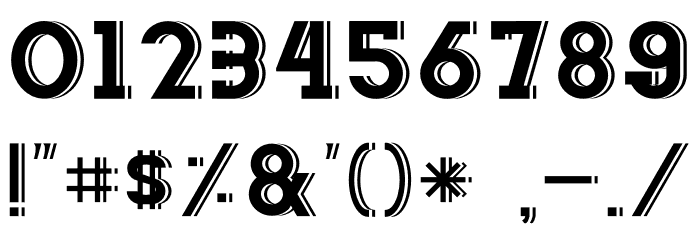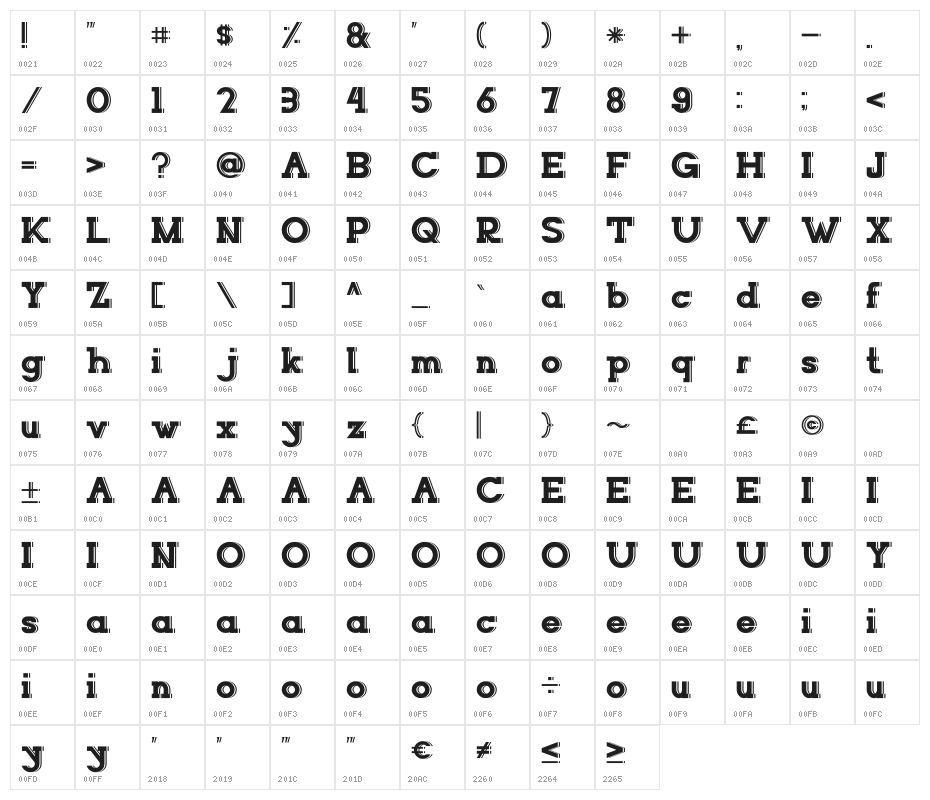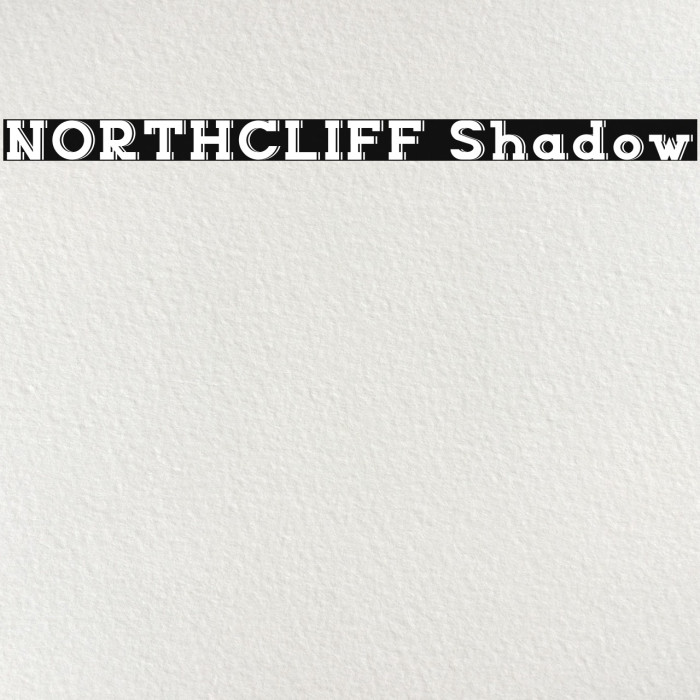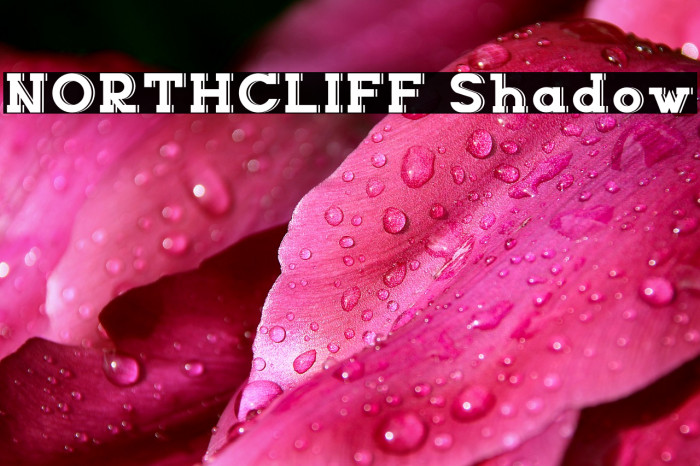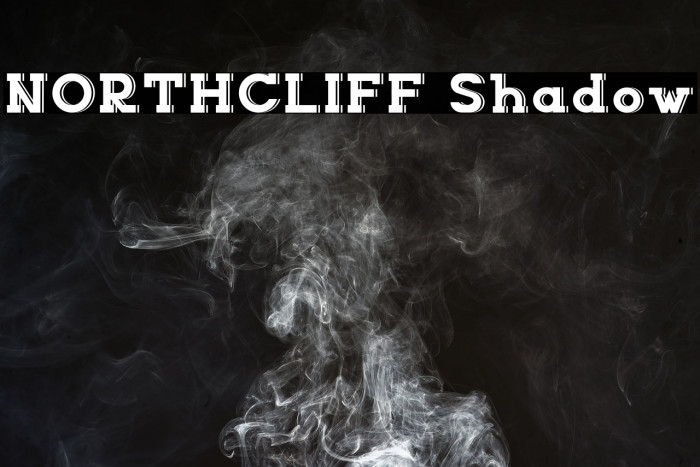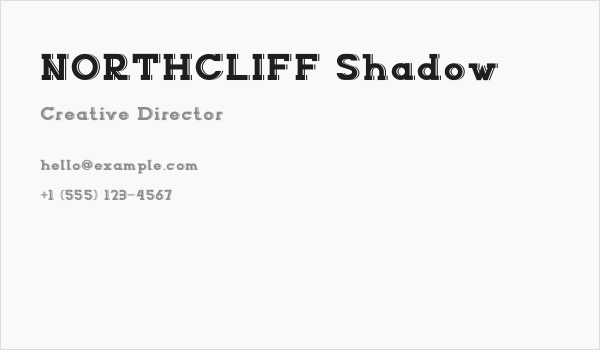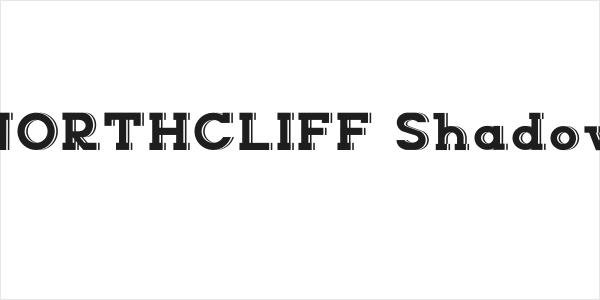
NORTHCLIFF Shadow Font
NORTHCLIFF Shadow Description
This font features a bold and striking design with a shadow effect that gives it a three-dimensional appearance. The uppercase and lowercase letters are well-defined, with strong, geometric lines that create a sense of stability and strength. The numbers and special characters maintain this bold aesthetic, ensuring consistency across all characters. The shadow effect adds depth, making it ideal for eye-catching designs. Its structured form is complemented by a moderate character spacing, which enhances readability while maintaining its bold presence.